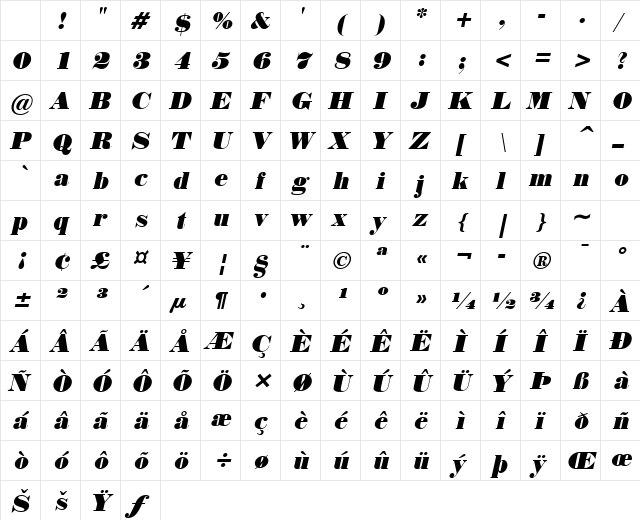
Norway is a composed and adaptable typeface that performs quietly and consistently across a wide range of design contexts. The slanted form adds forward momentum and visual energy.
Pro Tip: Use Norway for emphasis, pull quotes, and subheadings where its slanted energy can add rhythm to the layout.